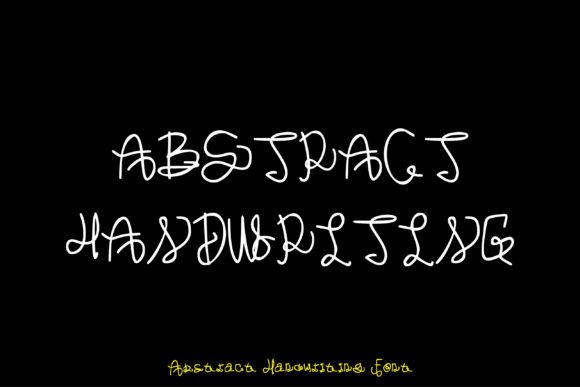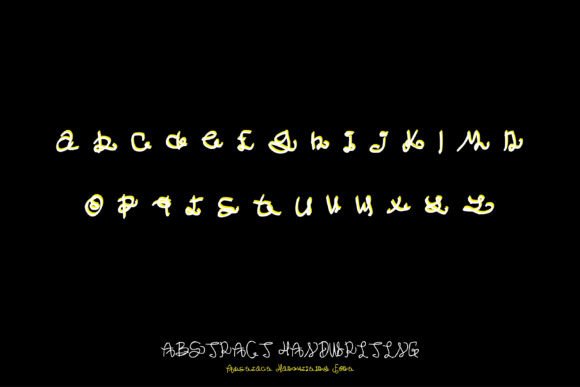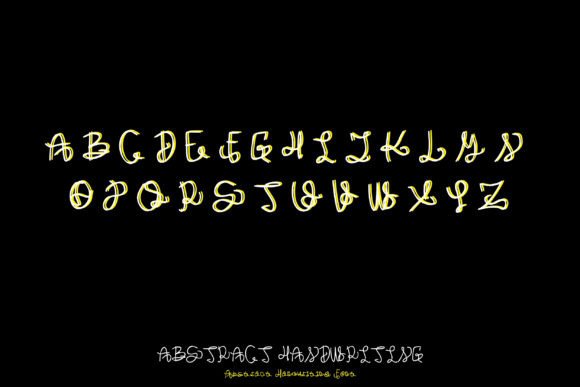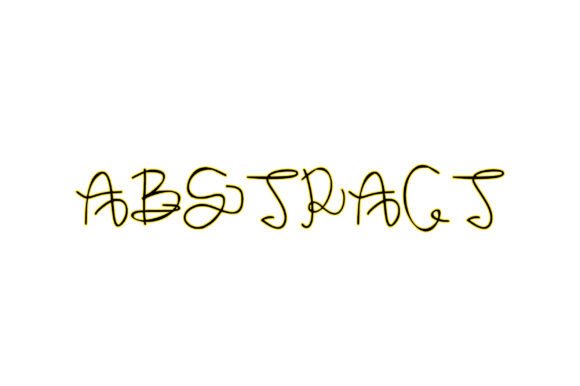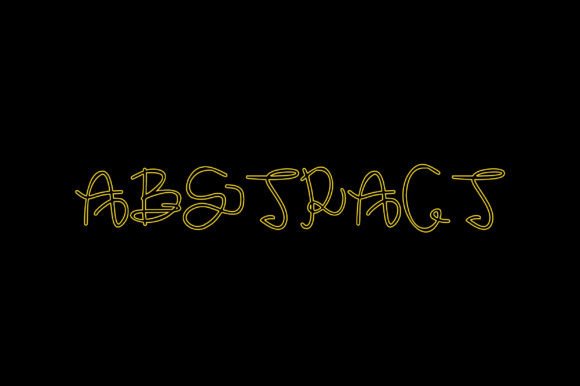
Abstract Font
About Abstract Font
“Abstract is a fun and whimsical handwritten font that adds a touch of playfulness to your designs. With a little bit of quirkiness, this font looks incredibly adept in a wide variety of contexts, making it a versatile and lively choice for creative projects.
The charm of Abstract lies in its fun and whimsical script, where each letter carries a sense of playfulness. This font is designed to bring a lighthearted and quirky vibe to your text, making it suitable for a range of creative applications.
Whether you’re working on branding, social media graphics, or any other design venture, Abstract stands out as a font that injects a dose of fun into your projects. Its versatility allows it to seamlessly adapt to different themes and contexts.
Imagine Abstract infusing your projects with a playful and whimsical touch, giving your designs a dynamic and lively appearance. Its quirky style becomes the defining element that sets your creations apart, creating a visual experience that resonates with creativity and joy.
As you explore the nuances of Abstract, you’ll discover its potential to transform ordinary projects into visually delightful expressions. Let it be the font that adds a touch of playfulness to your creative toolbox, making your designs stand out with a fun and whimsical handwritten aesthetic. With Abstract, every stroke becomes a brushstroke of creativity, making it a valuable asset for designers seeking a lively and versatile font.”